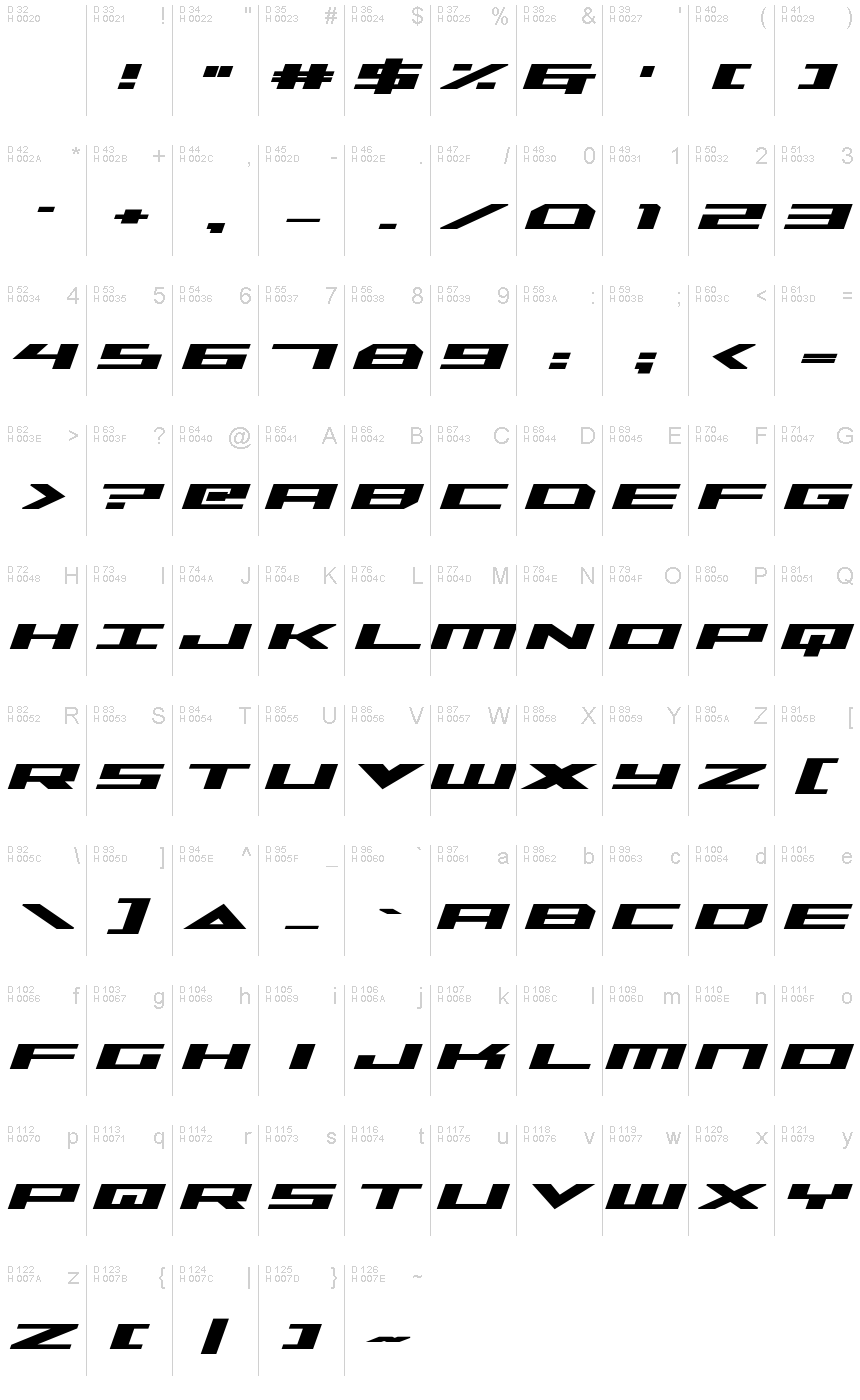
Trireme Bold Italic by Daniel Zadorozny of Iconian Fonts is a free futuristic display font with a hard, aerodynamic profile. Broad slanted letters, sharp cutaways, and long horizontal gaps suggest racing graphics and machine panels.
Motorsport branding is its clearest setting, especially for team logos and event posters. It can also bring a fast technical edge to game interfaces and science-fiction packaging. Across these uses, the lettering becomes a recognizable product identity through its repeated blade-like angles.